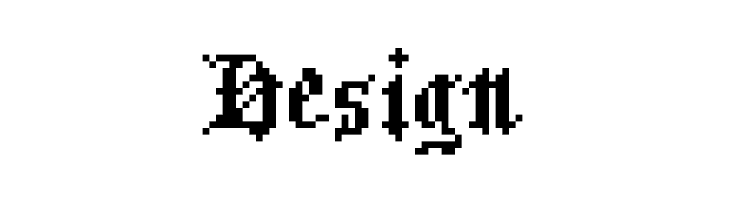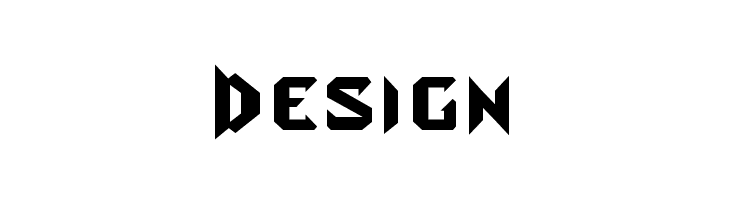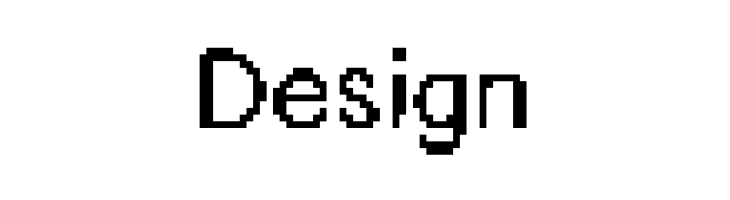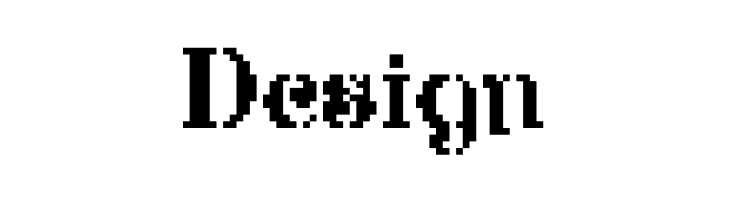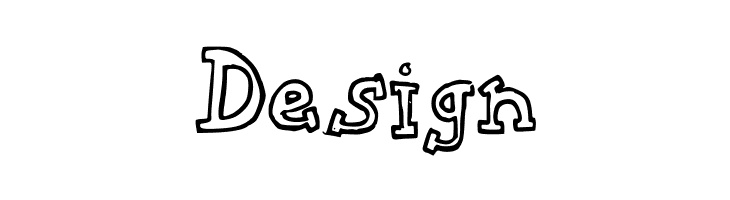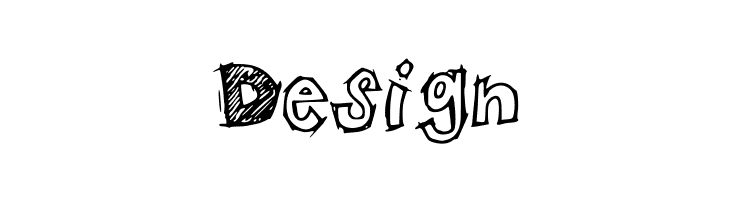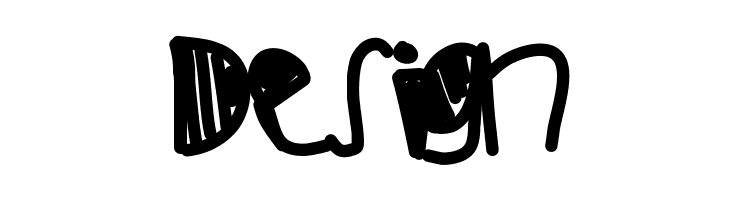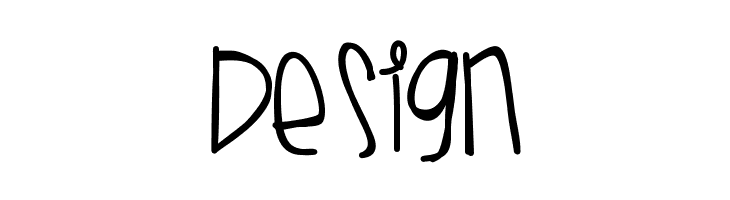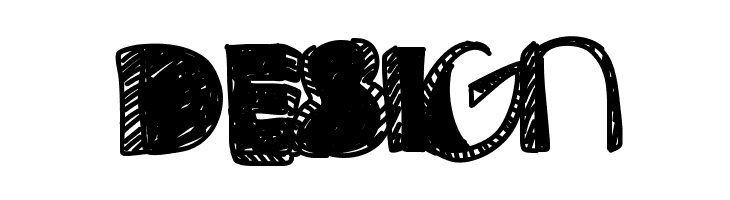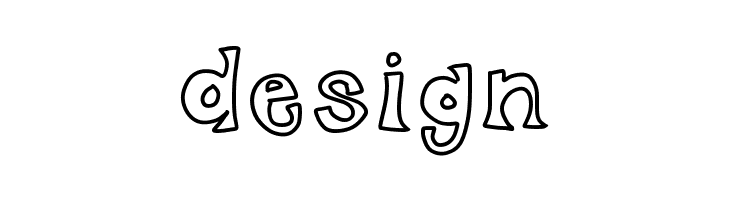
A decorative, modern blackletter-inspired font with elegant flourishes and high contrast.
A lively and expressive handwritten font with fluid strokes.
A pixelated, retro-style font with a digital, blocky appearance.
A playful, handwritten font with tall, narrow letters and a quirky style.
A pixelated, grid-based font inspired by retro digital displays.
A pixelated blackletter font with a bold, gothic style.
A pixelated, retro-style font inspired by early digital displays.
A pixelated, retro-style font inspired by classic 8-bit video games.
A playful, handwritten font with tall, narrow, and uniform strokes.
A bold, distressed font with a grunge, textured appearance.
A playful, hand-drawn font with bold outlines and a whimsical style.
A playful handwritten font with rounded, consistent strokes and a casual feel.
A bold, serif font with a modern twist, ideal for impactful headlines.
An elegant, italicized font with medium weight and sharp strokes.
A bold serif font with high contrast and strong, classic serifs.
A medium weight, italic serif font with a classic and elegant style.
A bold, distressed font with a rugged, vintage appearance.
A bold, angular font with a modern blackletter-inspired design.
A bold, angular font with a distressed, edgy appearance.
A textured, italicized font with a vintage, distressed style.
A playful, casual handwritten font with irregular, whimsical strokes.
A bold, pixelated decorative font with a retro digital style.
A playful, handwritten font with irregular strokes and a casual vibe.
A playful, hand-drawn font with a whimsical and bold style.